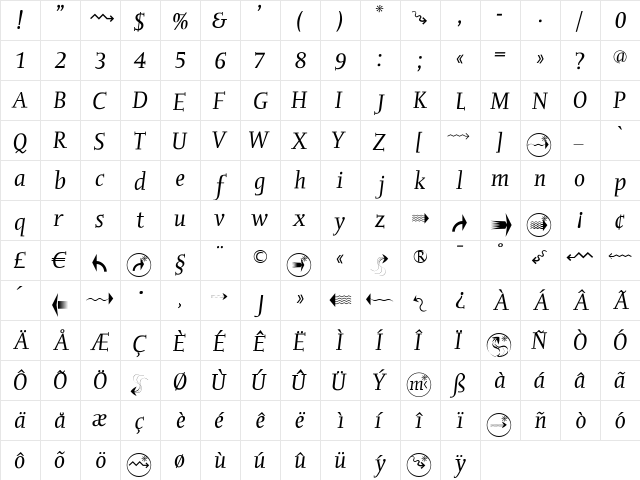
OliverJoKursiv Regular
Design Context for OliverJoKursiv Typeface
OliverJoKursiv takes a measured approach to typography — its balanced proportions and neutral character make it a reliable workhorse for both digital and print work. The slanted form adds forward momentum and visual energy.
Pro Tip: Try OliverJoKursiv for annotation and caption copy alongside an upright companion — the contrast in angle creates a dynamic but ordered typographic system.